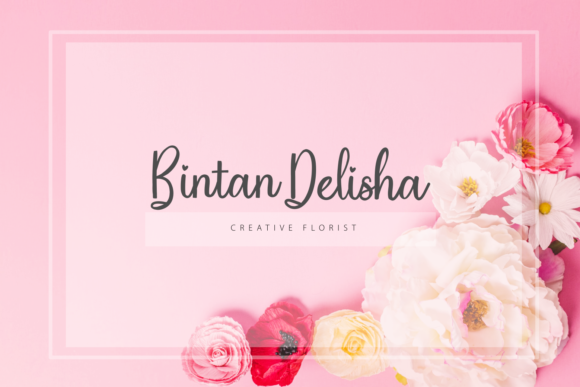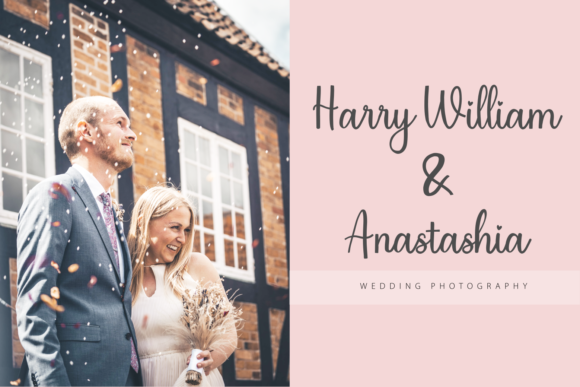
Oliver Belina Font
db-ku.com - Script & Handwritten -- Oliver Belina font is a beautiful script font designed with an incredibly modern feel. It features a varying baseline, smooth lines, gorgeous glyphs and stunning.